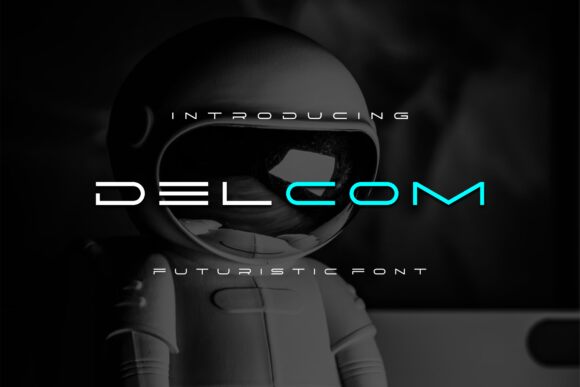
Delcom
Delcom font by Albert Kalingga is a futuristic display typeface distinguished by its geometric shapes and expanded width. Clean, modern, and minimalistic, its streamlined forms are geared for headlines and capturing attention with their sleek appearance.